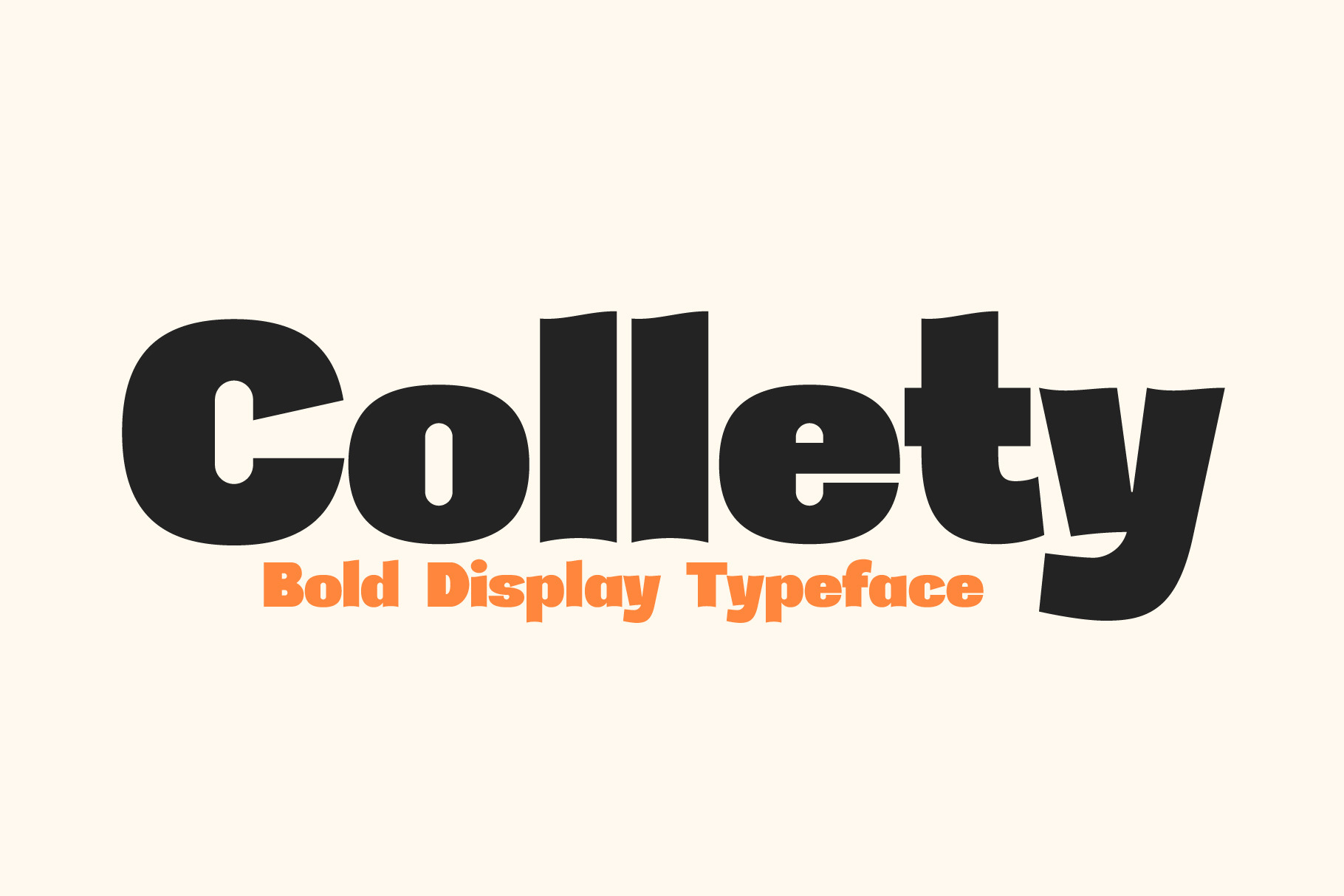
Collety Bold Display Typeface
Collety is a bold display typeface with modern curves and playful energy. Its strong letterforms and unique details are designed to grab attention, making it perfect for posters, logos, packaging, and branding that needs to stand out with confidence. With its bold personality and versatile style, Collety brings a fresh and dynamic voice to both print and digital projects.